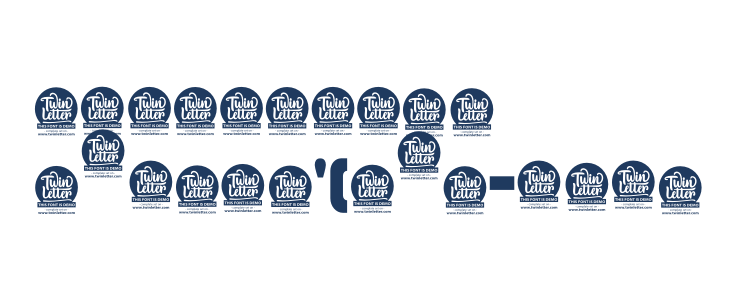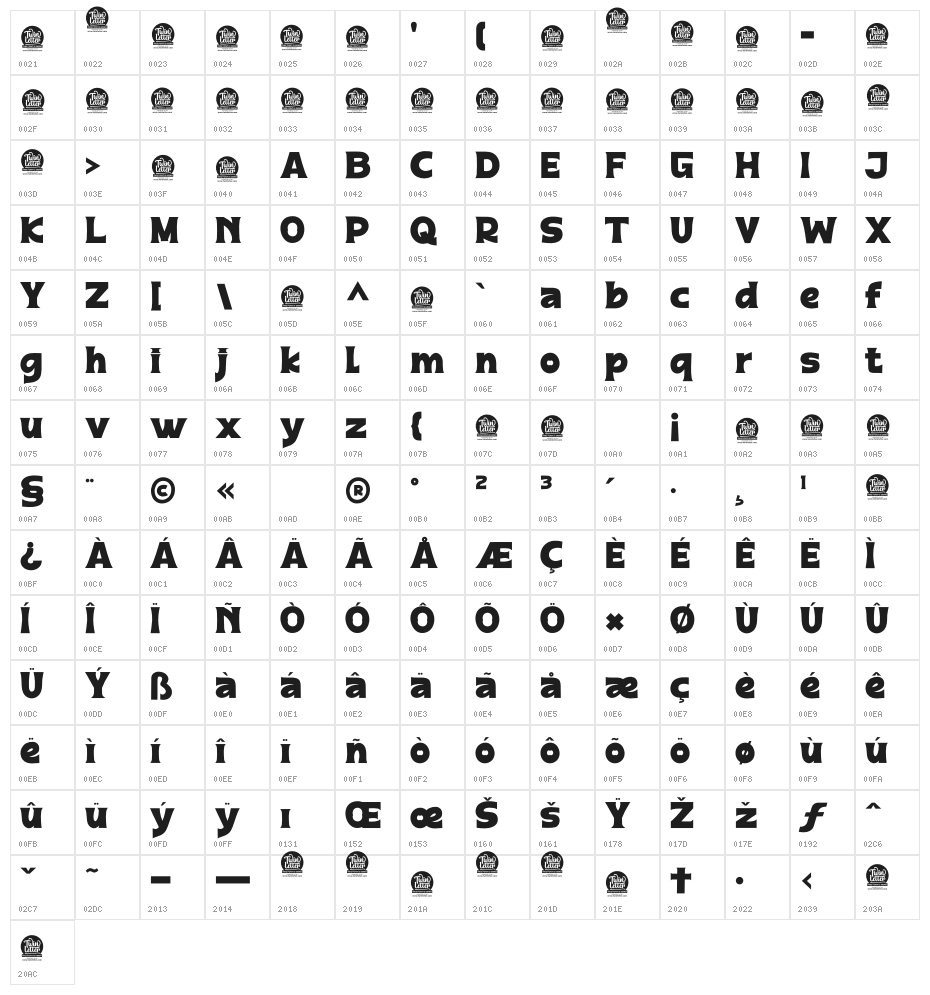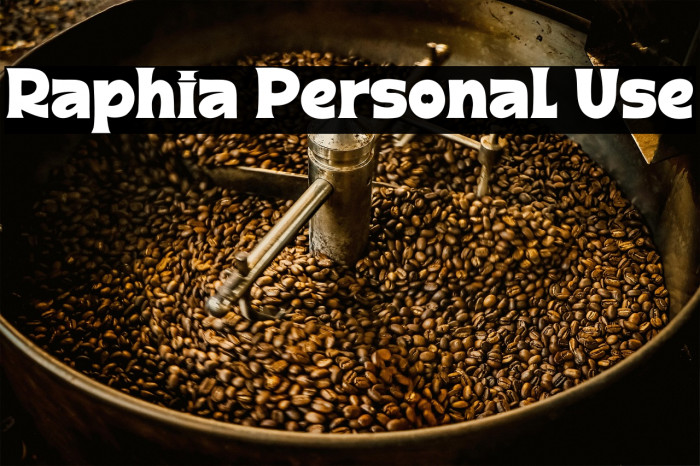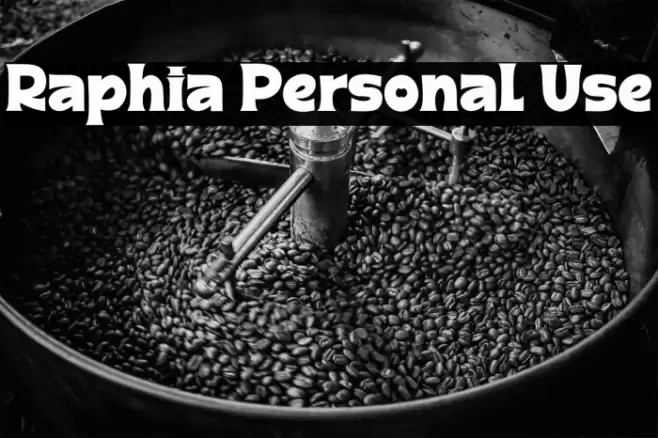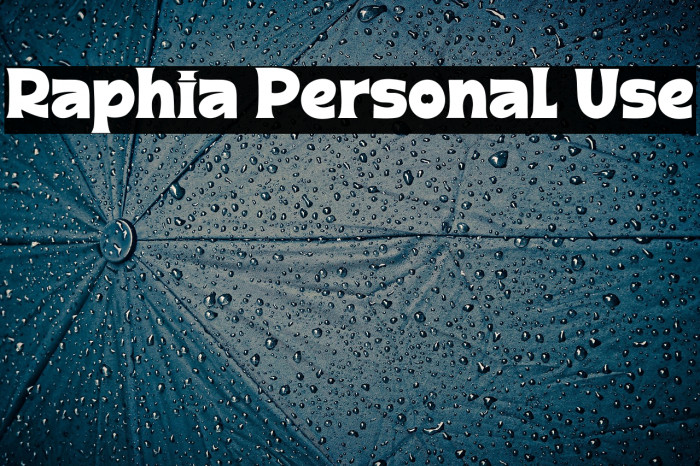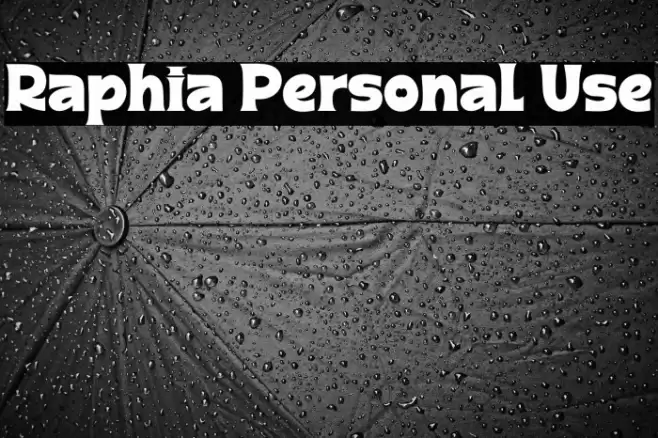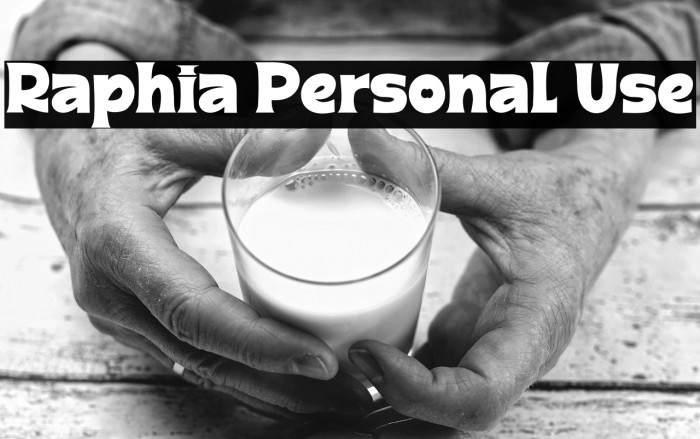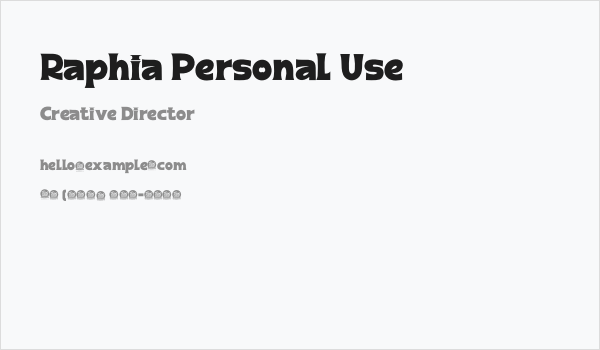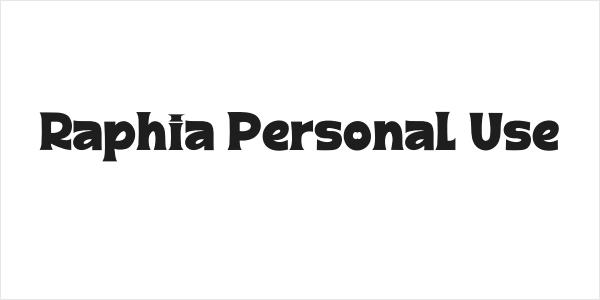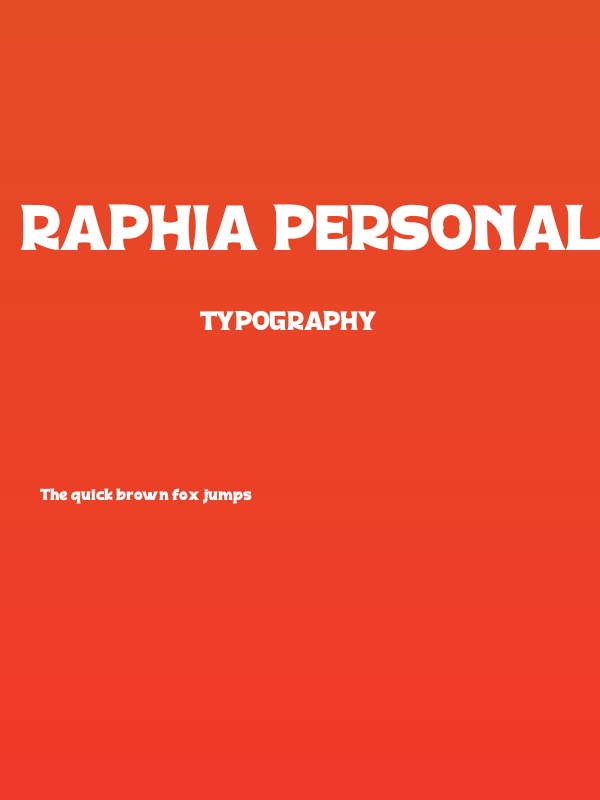
Raphia Personal Use Font
Raphia Personal Use Description
This font features a bold and dynamic style with a strong presence. The uppercase letters are robust and slightly condensed, giving a powerful and impactful look. The lowercase letters maintain a consistent weight, offering a harmonious balance with the uppercase. The characters have a slight curve, adding a touch of playfulness to the overall design. The numbers are equally bold, ensuring they stand out in any context. Special characters are designed with the same boldness, ensuring consistency across all elements. This font is ideal for making a statement, with its thick strokes and commanding appearance.